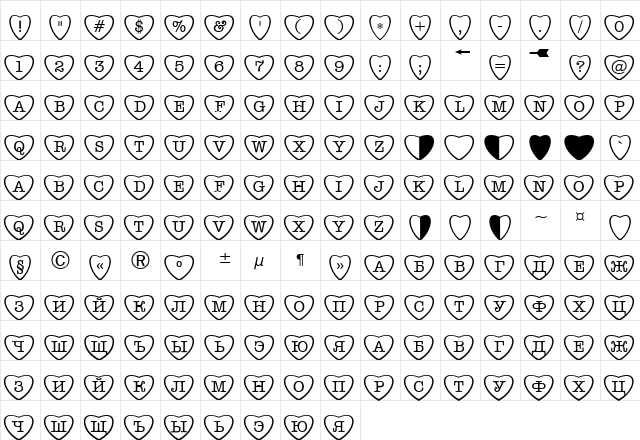
a_OldTyperCmDcFnt1 Normal Font Preview
a_OldTyperCmDcFnt1 Normal
Design Context for a_OldTyperCmDcFnt1 Typeface
a_OldTyperCmDcFnt1 is a composed and adaptable typeface that performs quietly and consistently across a wide range of design contexts.